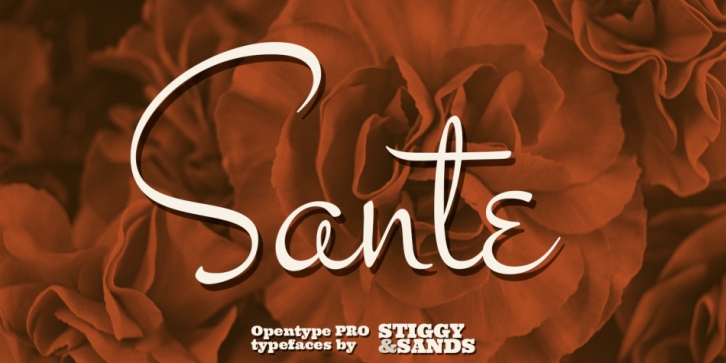
Publisher: Stiggy & Sands
Designed by Brian J. Bonislawsky and Jim Lyles, Sante Pro is a dingbat and script font family. This typeface has two styles and was published by Stiggy & Sands.
Sante Pro is a script of vintage origins with modern flair. This script embodies holiday and special event celebrations in its styling while exuding a confidence and carefree attitude. It makes a bold statement in any design.
This script is loaded with extra OpenType features such as Swash Capitals, Contextual Swashes, Oldstyle figures, and Borders & Flourishing Ornaments, to name a few, giving Sante Pro lots to celebrate!
But there’s more! The Sante Initials font uses specially designed flourishes to follow the forms of Swash capitals to create a unique and fanciful look. See the PDF guidebook for Sante Initials for more information on the font.